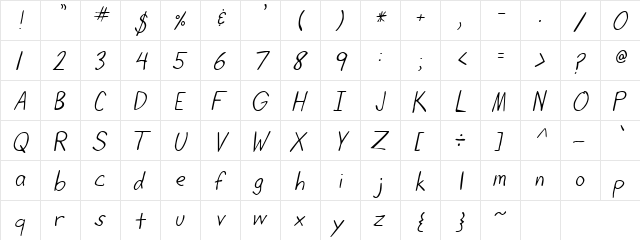
Lifetime Oblique
Design Context for Lifetime Typeface
Lifetime takes a measured approach to typography — its balanced proportions and neutral character make it a reliable workhorse for both digital and print work. The dynamic lean of this cut emphasises speed and emphasis in any layout.
Pro Tip: Use Lifetime for emphasis, pull quotes, and subheadings where its slanted energy can add rhythm to the layout.